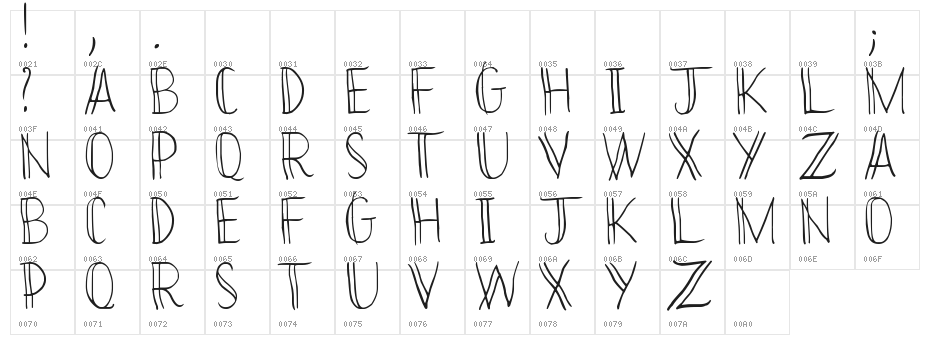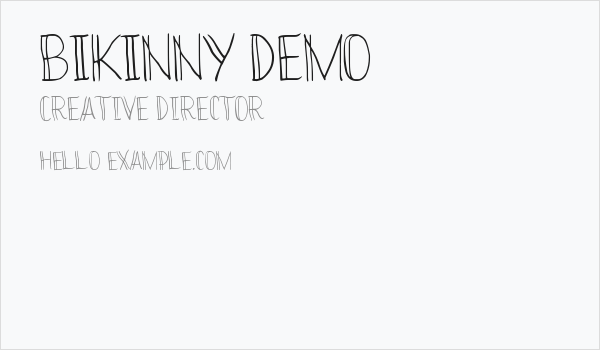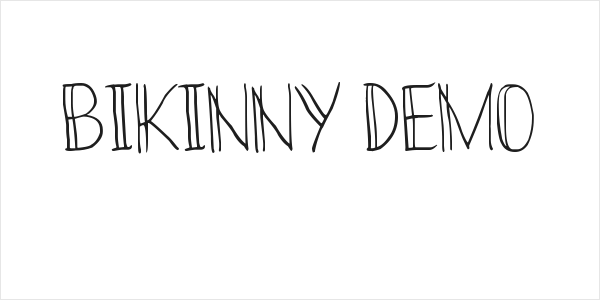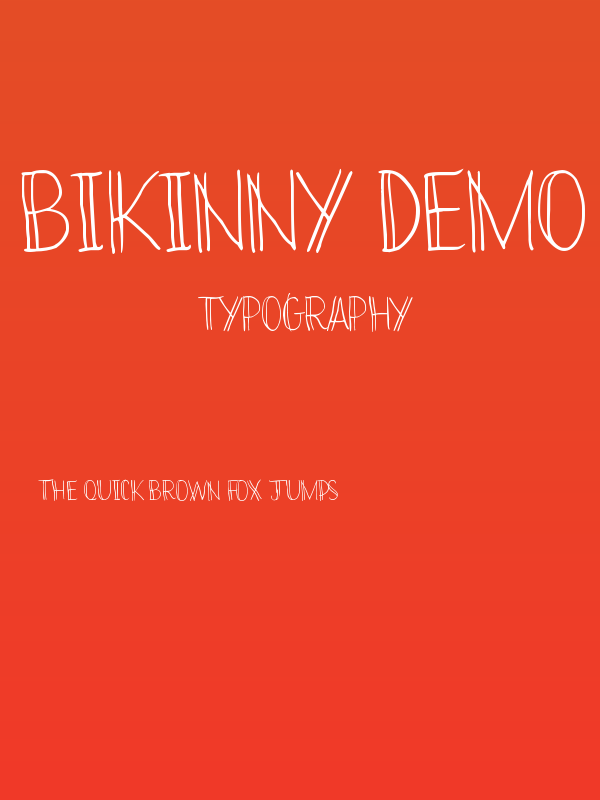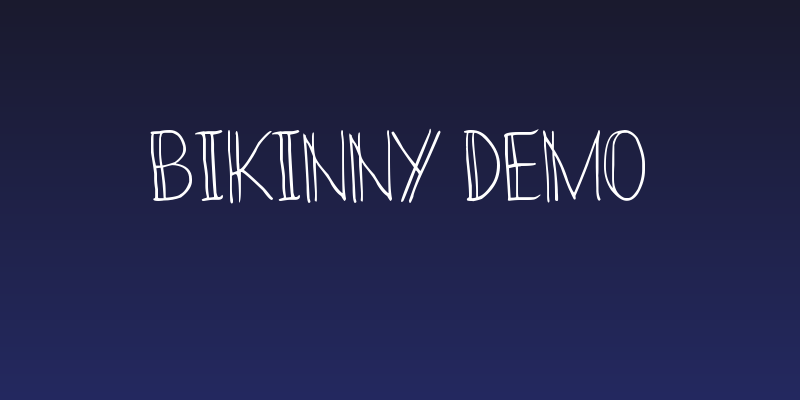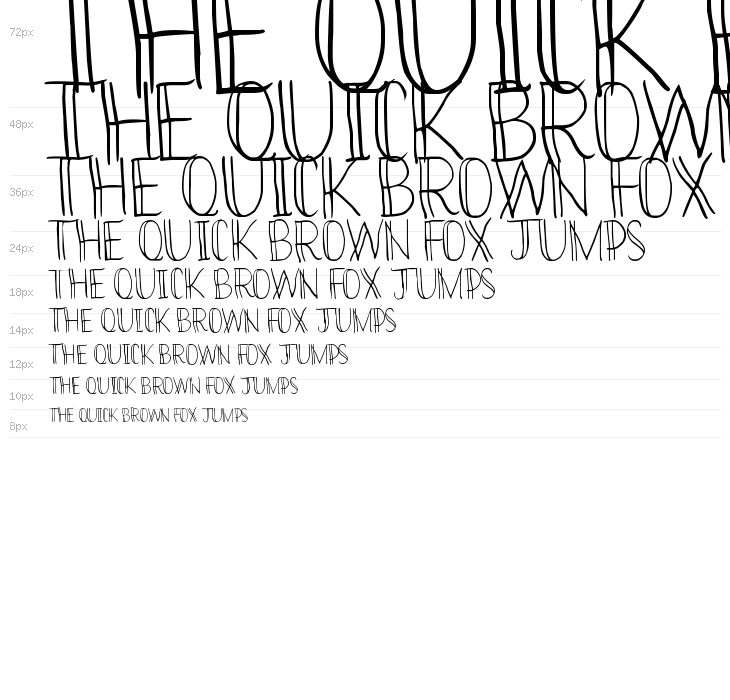
Bikinny Demo Font
Bikinny Demo Description
This font features a playful and whimsical design, characterized by its tall, narrow letterforms and slightly irregular strokes. The uppercase letters exhibit a hand-drawn quality, with varying line thicknesses that add a dynamic and lively feel. The lowercase letters maintain the same playful aesthetic, with a consistent height that complements the uppercase set. The numerals and special characters follow the same style, ensuring a cohesive look across all text elements. This font's unique style makes it stand out, offering a creative and artistic touch to any project.